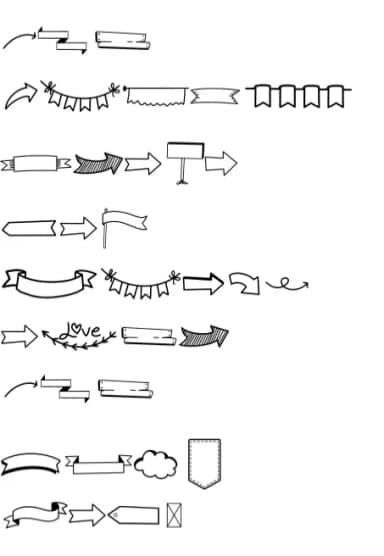
Banner and Arrows, designed by Fox7, features flowing ribbons and directional arrows built to work as standalone design elements. Each shape is sharp and purposeful, shifting focus entirely from readable text to ornamental impact. Banners curve with genuine grace, arrows point with clarity, and every glyph functions as a completed, polished shape ready to drop into layouts.
What makes it genuinely practical for real design work is how much you can accomplish with a single keystroke. Wedding invitation suites depend on ribbon accents to soften hard edges, and this collection delivers them instantly without additional illustration work. Scrapbooking layouts need visual guides to lead the eye smoothly through compositions, and the arrow glyphs handle that naturally. Product label corners often demand decorative finishing touches without consuming precious design time, and the banner shapes solve that challenge in seconds. DIY paper craft projects benefit significantly from having such varied decorative elements collected into one download.
This font works best for makers and designers who build their layouts around decorative elements rather than text. Stationery designers find immediate practical use for it, as do scrapbookers and anyone working on embellishment-heavy projects where ornamental shapes carry the visual weight. Banner and Arrows is available on Creative Fabrica, ready to install into your font folder and bring instant finishing touches to your work.
Banner and Arrows Font is a versatile dingbats font that works for both headings and body text. Pair it with a contrasting sans-serif or serif font to add visual interest and a clear distinction between titles and body copy.
Banner and Arrows Font